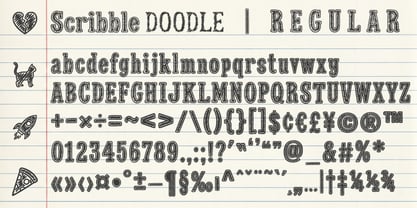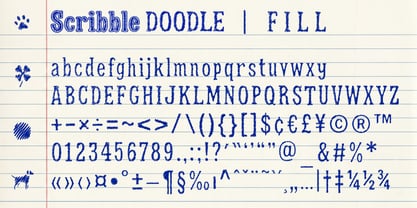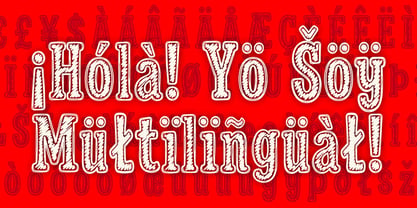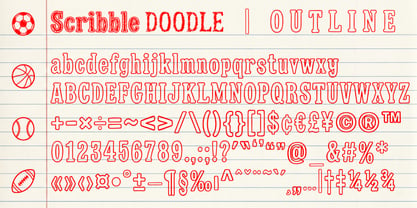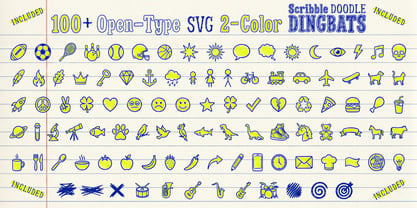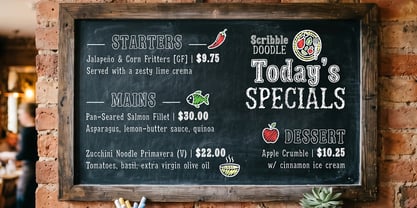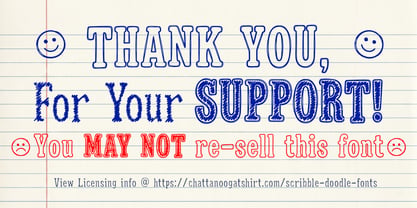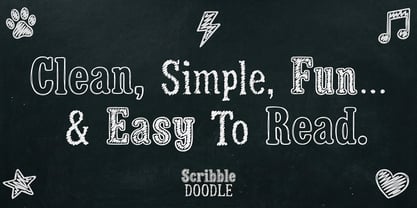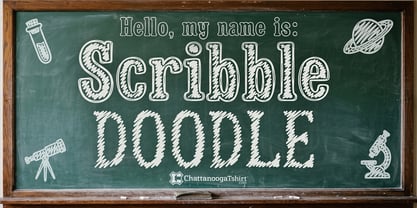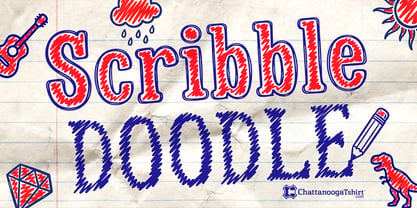
Scribble Doodle
by Chattanooga Tshirt
The Scribble Doodle Font Family was designed by Benjamin Pinson and published by Chattanooga Tshirt. Scribble Doodle contains 4 styles and family package options. More about this family
Scribble Doodle is a unique handmade display font family that embodies the spontaneous energy of pen-on-paper sketching. With bold, scribbled letterforms that resemble doodles in the margins of a notebook, this font remains clean, fun, and easy to read at any size. The font family features three complementary styles — Regular, Outline, and Fill — providing designers with maximum flexibility to mix, layer, and colorize for striking results. Use the Outline for a chalkboard aesthetic, stack the Fill beneath the Outline for a vibrant two-tone effect, or embrace the textured Regular for an authentic hand-scribbled vibe. Built on a robust slab serif skeleton, Scribble Doodle ensures clarity even when used in large formats on t-shirts, tumblers, tote bags, posters, and signs. This makes it an ideal choice for print-on-demand sellers, Cricut and Silhouette crafters, vinyl cutters, sticker makers, and laser engravers. It also shines in applications such as chalkboard menus, classroom décor, kids' party invitations, birthday designs, school projects, and social media graphics. The font includes extensive multilingual character support, accommodating Western European, Central European, and other Latin-based languages, ensuring your designs resonate with a global audience. Additionally, the Scribble Doodle Dingbats font is bundled with the family, featuring over 100 two-color doodle, hand-drawn and scribble zigzag line-filled icons in the same playful style. This dingbat set covers a variety of themes including sports, animals, food, nature, music, emoji-style faces, science, transportation, and more — all ready to integrate seamlessly into your designs as fully scalable, color-ready glyphs. Scribble Doodle pairs beautifully with clean sans-serif body fonts for contrast or can stand alone as the focal typographic element in any layout that demands personality and handmade charm. Perfect for t-shirt graphics, craft files, stickers, labels, mugs, chalkboard signage, restaurant menus, kids' products, party supplies, and engaging social media content.
Designers: Benjamin Pinson
Foundry: Chattanooga Tshirt